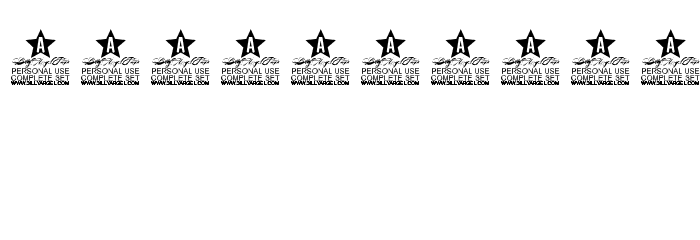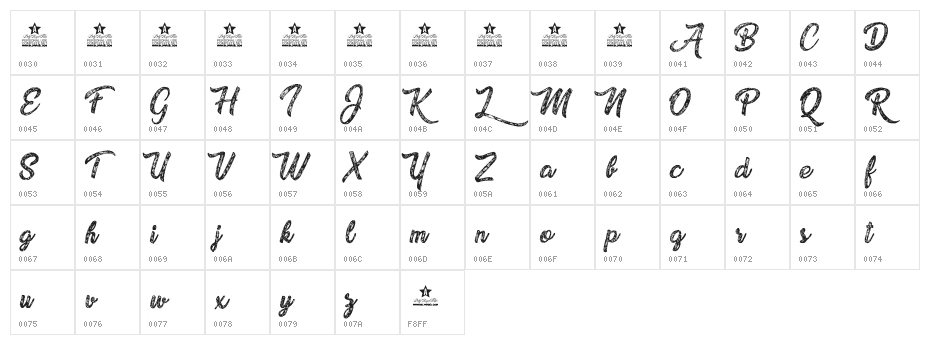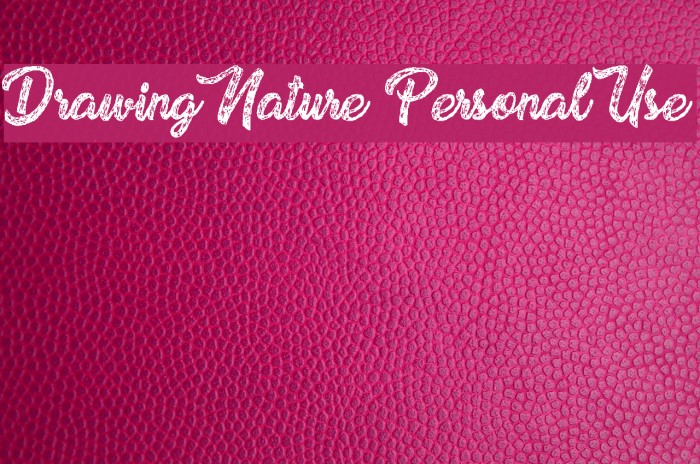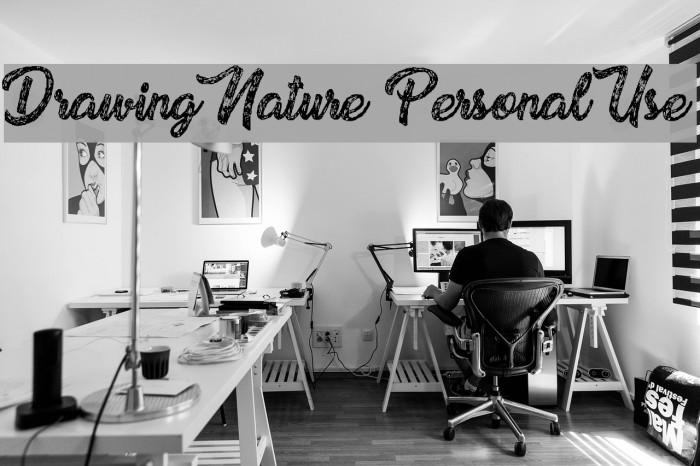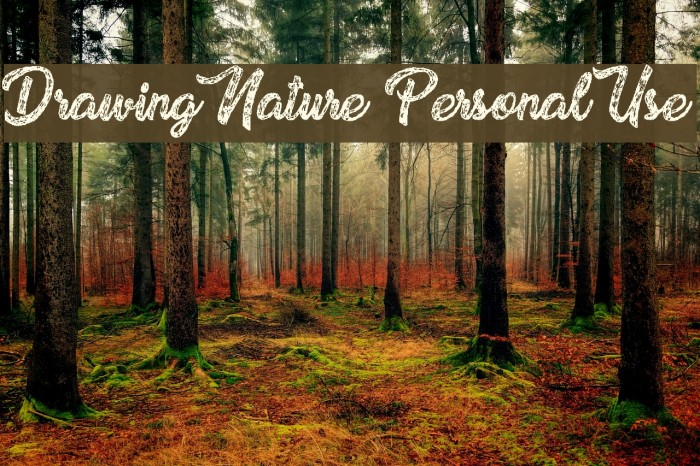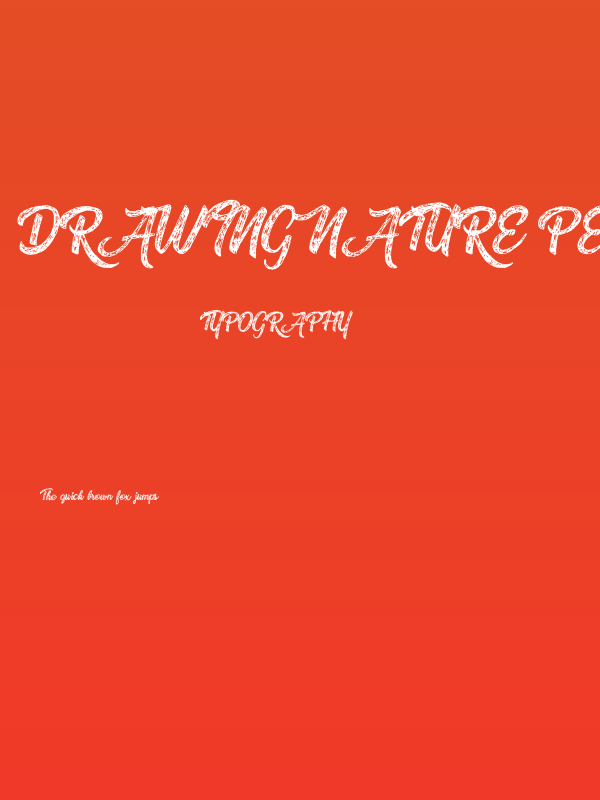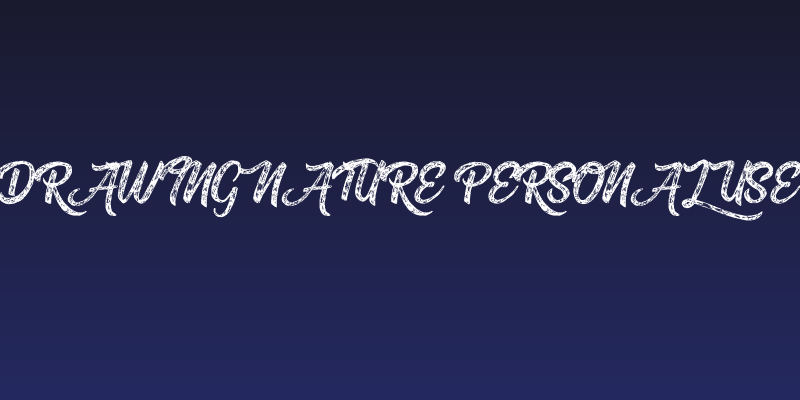
Drawing Nature Personal Use Font
Drawing Nature Personal Use Description
This font features a dynamic and textured script style, reminiscent of hand-drawn calligraphy with a modern twist. The letters are bold and expressive, with a rough, sketch-like texture that adds a sense of movement and energy. The uppercase letters are particularly striking, with sweeping curves and flourishes that give them a dramatic flair. The lowercase letters maintain the same textured appearance, offering a cohesive look across the alphabet. The numbers and special characters are equally detailed, ensuring consistency throughout. This font is ideal for projects that require a personal, artistic touch, such as invitations, greeting cards, or branding materials that aim to convey creativity and individuality.